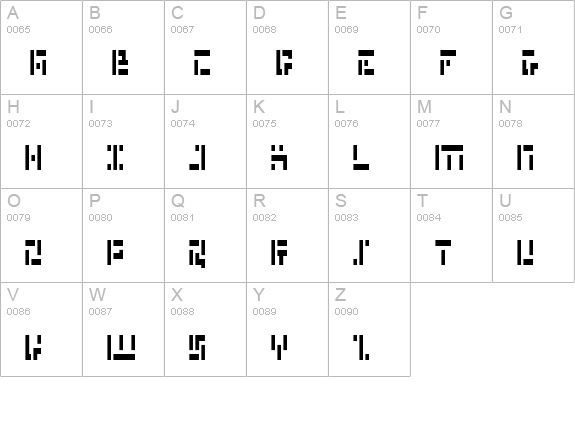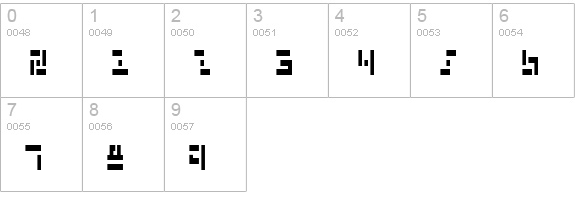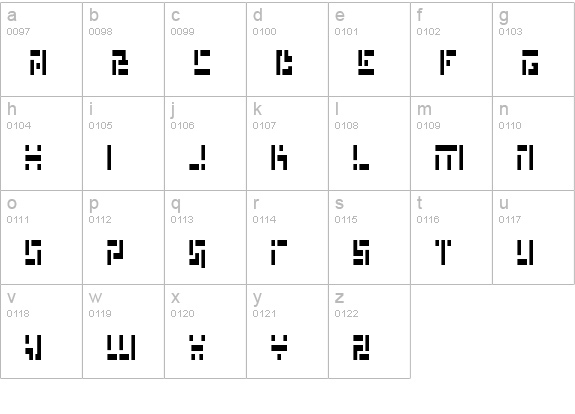
Missile Man Condensed is a distinctive, condensed-width variant in the Missile typeface family \xE2\x80\x94 well suited to design and typography projects.
Missile Man Condensed font is a sleek and modern typeface that exudes a powerful and dynamic aesthetic. With its sharp edges and bold lines, this font is perfect for creating eye-catching headlines, posters, logos, and more. The condensed design allows for efficient use of space without compromising on readability. Best of all, Missile Man Condensed font is available for free download at FontsMarket.com. Whether you're a designer looking to add a touch of sophistication to your projects or a creative individual seeking to make a statement, this font is a versatile and stylish choice that won't cost you a dime. Download it today and elevate your designs with the sleek and impactful Missile Man Condensed font.